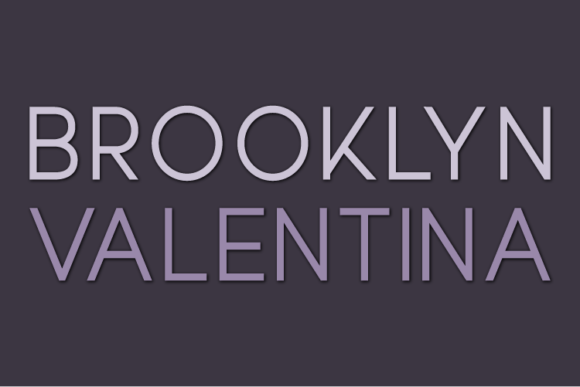
The Ultimate Font for Creative Projects: Brooklyn Valentina
Have you ever been in the middle of a design project, and suddenly, you’re stuck on finding the perfect font? I recall a particularly frustrating experience while working on a wedding invitation design. My client wanted a modern, elegant look, but I just couldn’t find a font that fit the bill. That was until I discovered Brooklyn Valentina – a stunning sans serif font that has since become a staple in my design toolkit.
An Honest Review of Brooklyn Valentina
- ✨ **Versatility**: Brooklyn Valentina is an incredibly versatile font, perfect for a wide range of projects, from beautiful headings and gorgeous invitations to stunning logos and more.
- ✅ **Clean and Modern Design**: Its clean, modern sans serif design makes it perfect for displays, headers, invitations, save-the-dates, weddings, and so much more.
- 💫 **High-Quality Typography**: The font is designed with high-quality typography in mind, ensuring that your designs look professional and polished.
While Brooklyn Valentina is an excellent font, there are a few minor quirks to be aware of:
- 🤔 **Glyph Limitations**: Some users have reported limitations with certain glyphs or special characters, but these can often be addressed with font updates or workarounds.
The Backstory of Brooklyn Valentina
While the exact origins of Brooklyn Valentina might be shrouded in mystery, it’s clear that its design was inspired by the modern urban landscape. The font’s creator aimed to craft a typeface that was both clean and expressive, capable of elevating a wide range of design projects.
Q: What makes Brooklyn Valentina suitable for wedding designs?
A: Brooklyn Valentina’s clean, modern design and elegant feel make it an excellent choice for wedding invitations, save-the-dates, and other wedding-related materials.
Q: Does Brooklyn Valentina support OpenType features?
A: Yes, Brooklyn Valentina supports various OpenType features, including stylistic alternates, glyphs, and more, allowing for greater creative flexibility in your designs.
Q: Is Brooklyn Valentina easy to read?
A: Absolutely! Brooklyn Valentina is designed with readability in mind, making it perfect for both headings and body text in a variety of design projects.